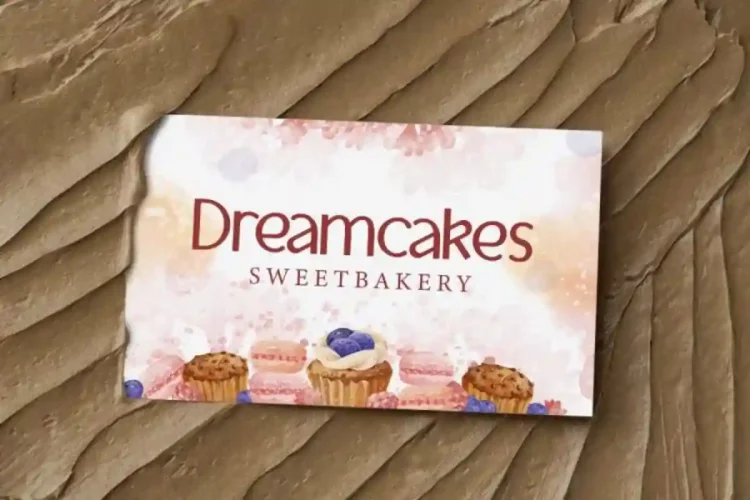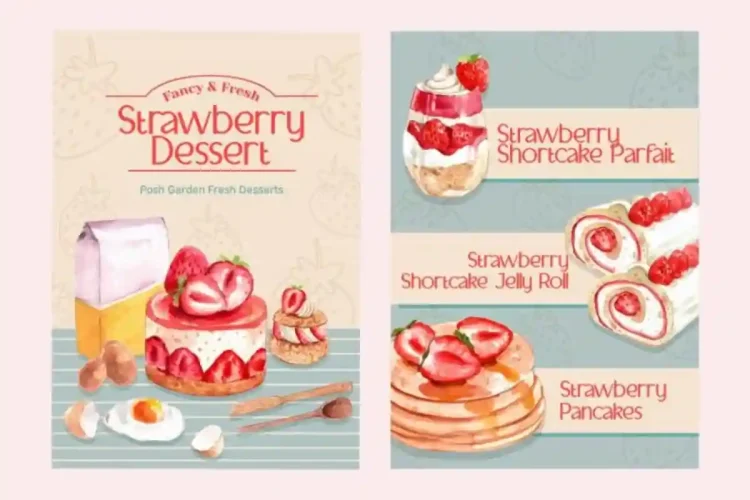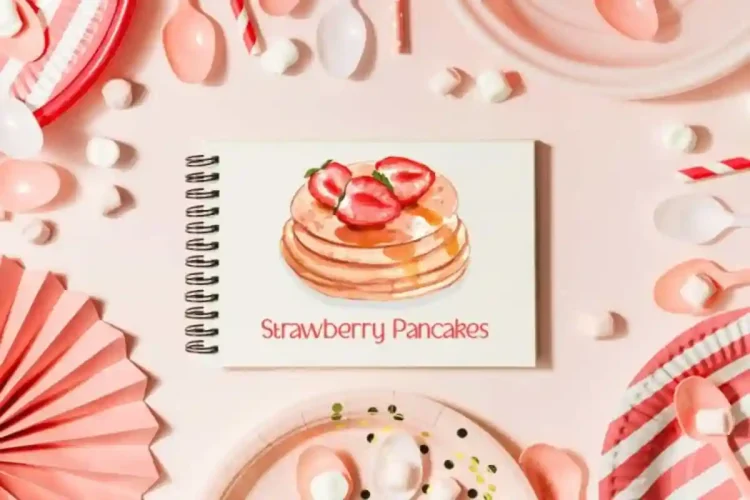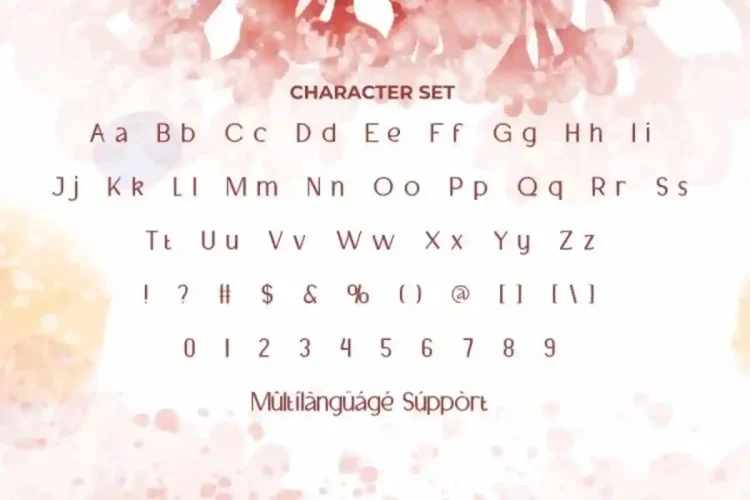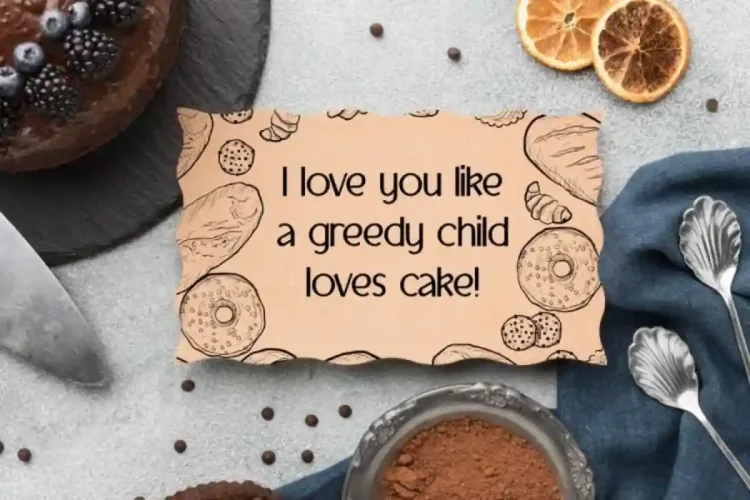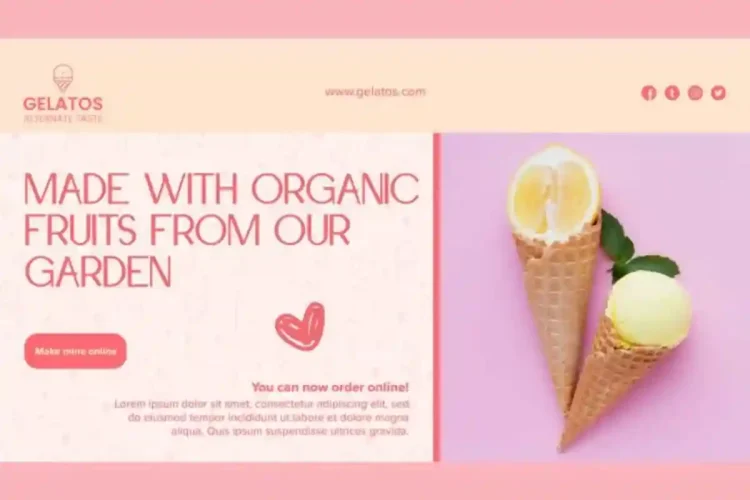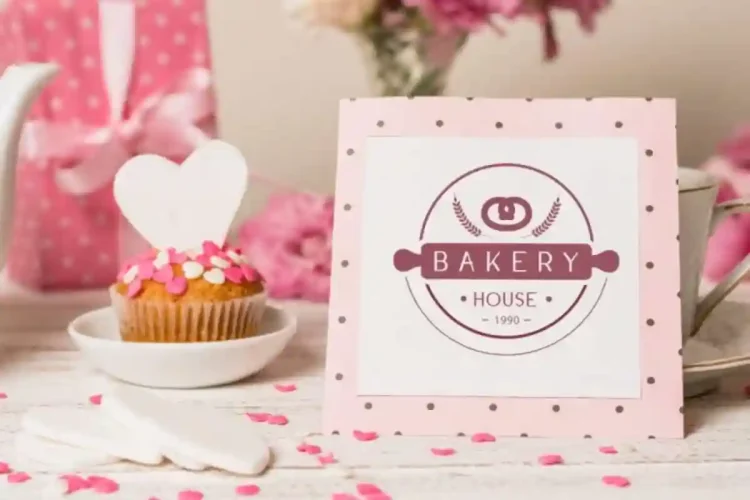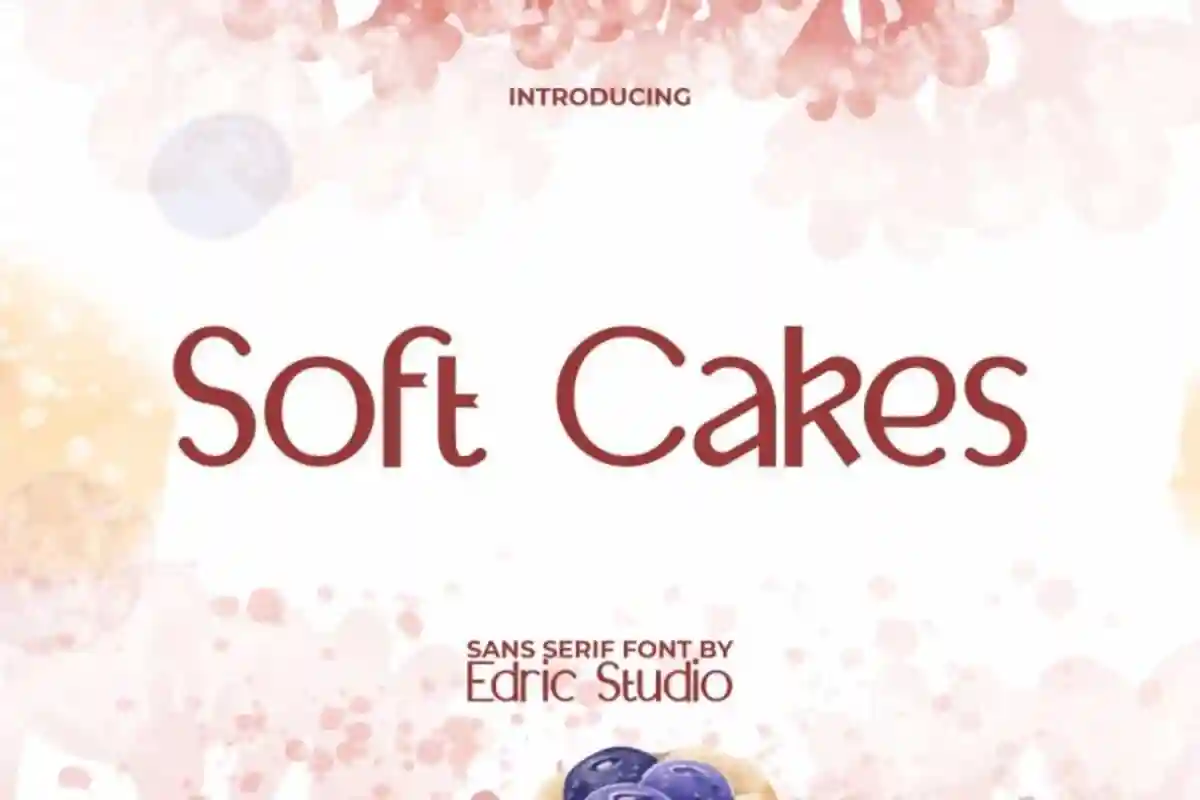
Soft Cakes Font is a Stunning minimalist modern sans serif display font. This font has a simple and clean style that makes every design look interesting. Handcrafted with care, this charming font captures the fun, fluffy, and cheerful vibe that instantly grabs attention.
Soft Cakes Sans Serif Font comes with full set of Uppercase and Lowercase Basic Characters, Number, a large range of Punctuation, and Symbol. It has stylish characters set, perfectly managed with well spaced and kerning.